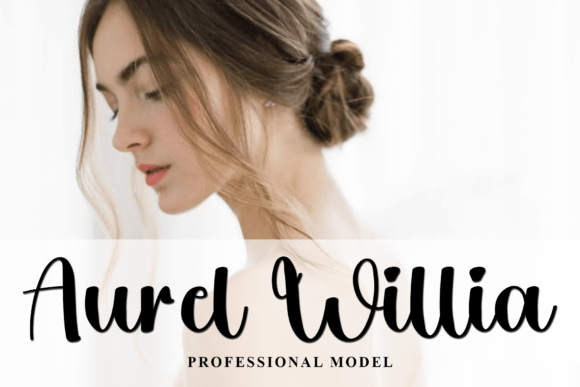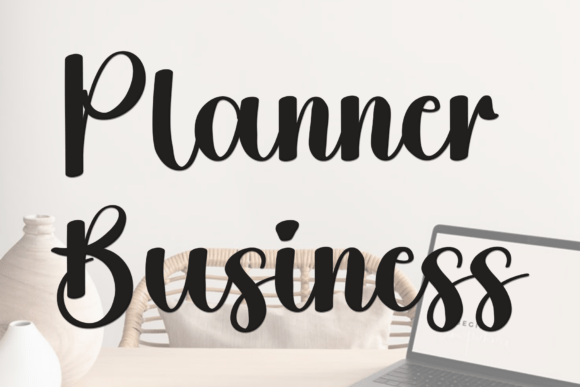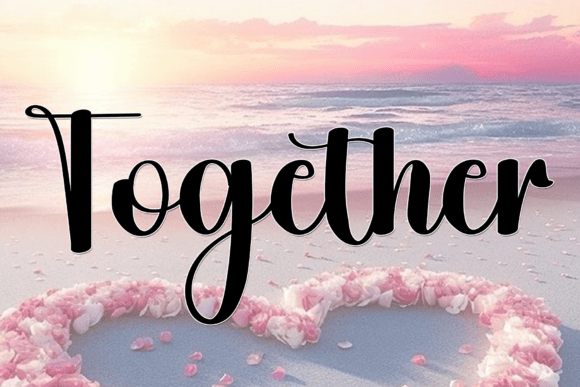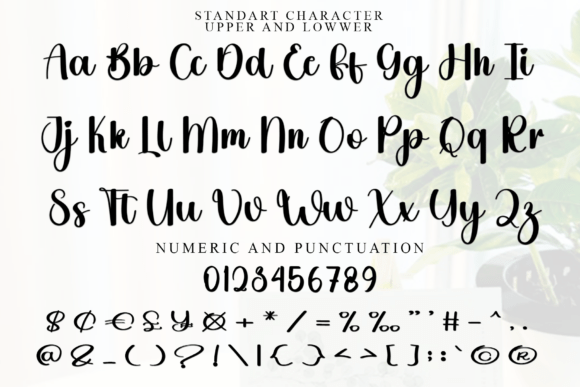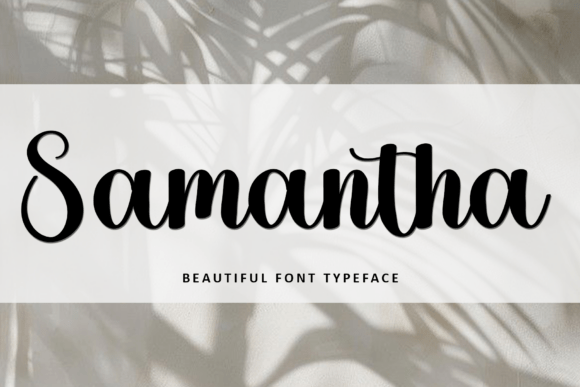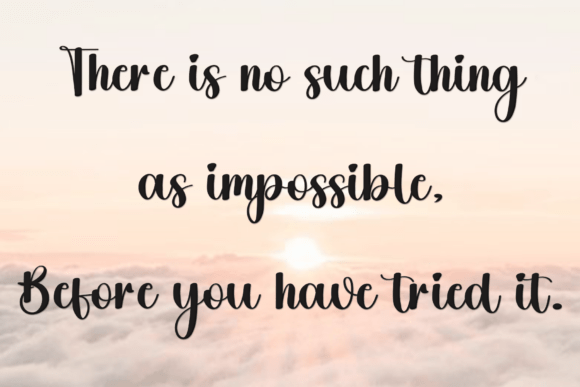
Billion Font: Adding a Touch of Holiday Magic to Your Designs
The holiday season is upon us, and with it comes the desire to create festive and merry designs that capture the spirit of the season. If you’re a designer or crafter looking for a unique and enchanting typeface to add to your projects, look no further than the Billion Font. This decorative font is perfect for greeting cards, gift tags, and holiday-themed projects, bringing a cheerful and nostalgic ambiance to your words.
What is Billion Font?
Billion Font is a festive and merry typeface that is designed to capture the essence of the holiday season. With its decorative elements and whimsical flair, it adds a touch of enchantment to your designs. This font is perfect for anyone looking to create holiday-themed projects that are both fun and elegant.
Key Features of Billion Font
- Decorative Elements: Billion Font features decorative elements that are sure to add a touch of holiday magic to your designs. From snowflakes to holly leaves, this font has everything you need to create festive and merry designs.
- Whimsical Flair: This font has a whimsical flair that is sure to bring a smile to your face. Its playful and fun design makes it perfect for holiday-themed projects.
- PUA Encoded: Billion Font is PUA encoded, which means you can access all of the amazing glyphs and ligatures with ease. This makes it easy to use and customize the font to suit your needs.
Uses for Billion Font
Billion Font is perfect for a variety of holiday-themed projects, including:
- Greeting Cards: Add a touch of holiday magic to your greeting cards with this festive font.
- Gift Tags: Create custom gift tags that are sure to impress with Billion Font.
- Holiday-Themed Projects: From holiday posters to social media graphics, this font is perfect for any holiday-themed project.
Why Choose Billion Font?
There are many reasons why you should choose Billion Font for your holiday-themed projects. Here are just a few:
- Unique Design: Billion Font has a unique design that is sure to stand out from the crowd.
- Easy to Use: This font is easy to use and customize, making it perfect for designers and crafters of all skill levels.
- Festive and Merry: Billion Font is the perfect way to add a touch of holiday magic to your designs.
Tips for Using Billion Font
Here are a few tips for using Billion Font in your holiday-themed projects:
- Experiment with Different Sizes: Try using Billion Font in different sizes to create a unique and eye-catching design.
- Combine with Other Fonts: Combine Billion Font with other fonts to create a unique and interesting design.
- Use Decorative Elements: Take advantage of the decorative elements in Billion Font to add a touch of holiday magic to your designs.
Billion Font is a festive and merry typeface that is perfect for holiday-themed projects. With its decorative elements and whimsical flair, it adds a touch of enchantment to your designs. Whether you’re a designer or crafter, this font is sure to bring a cheerful and nostalgic ambiance to your words. So why wait? Download Billion Font today and let your typography shine with the magic of the holiday season!